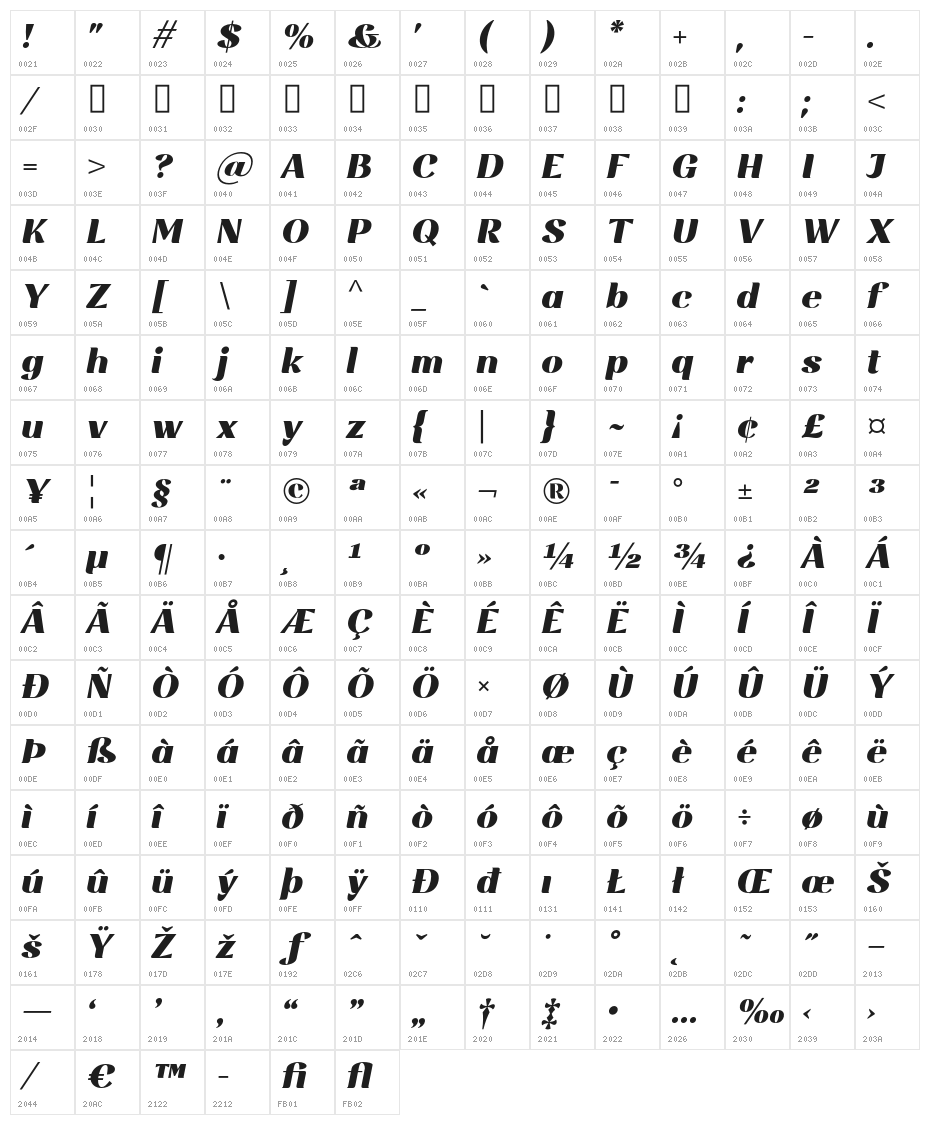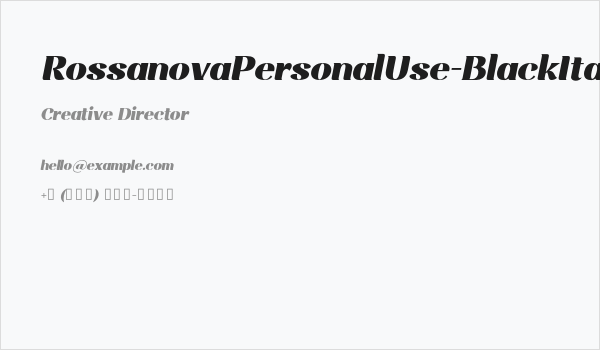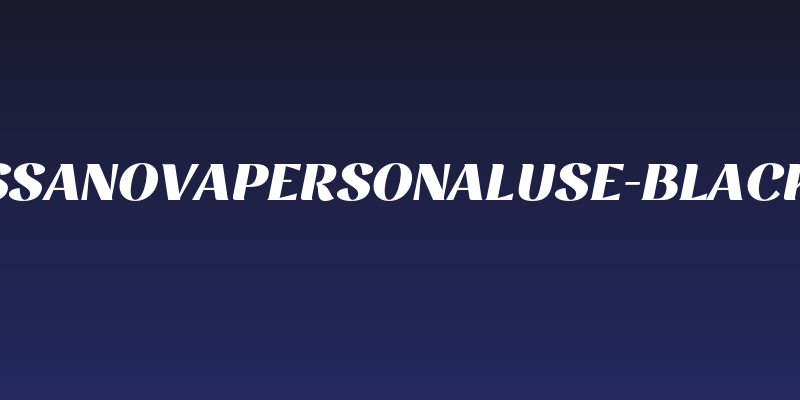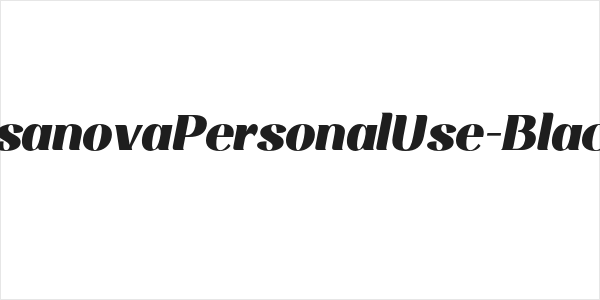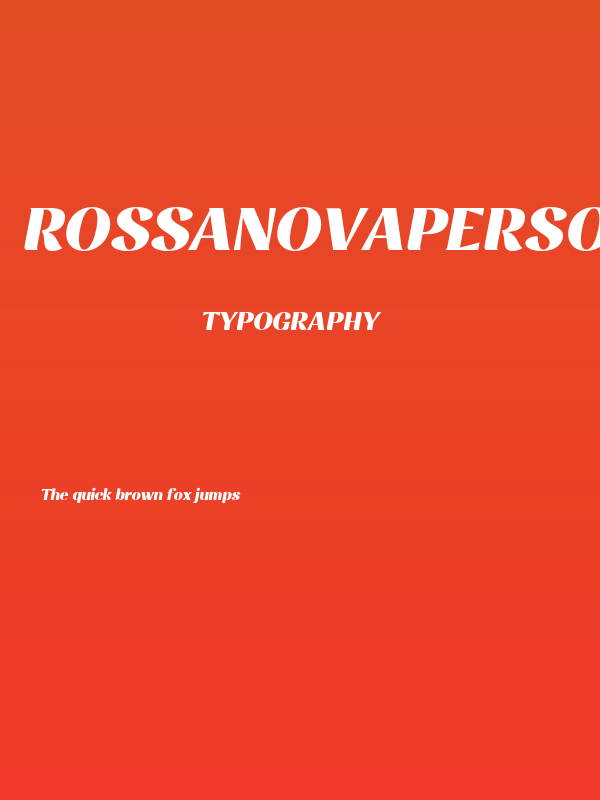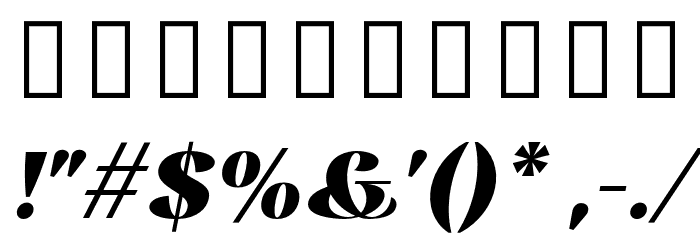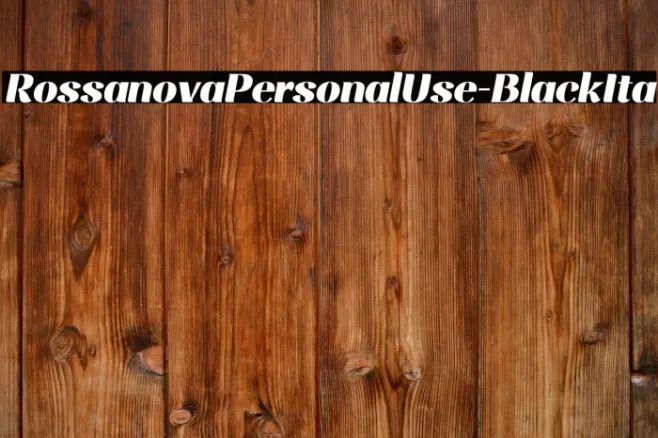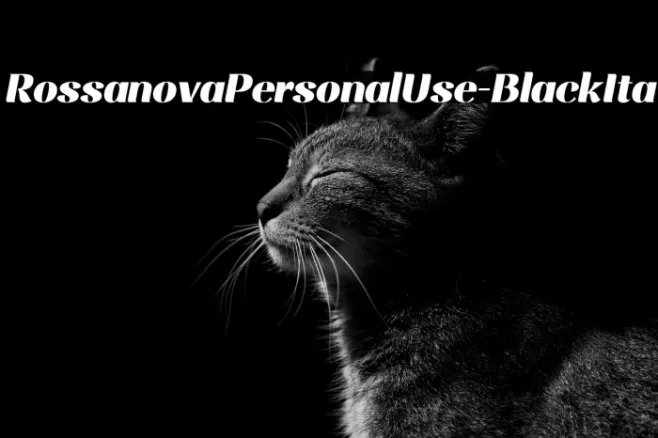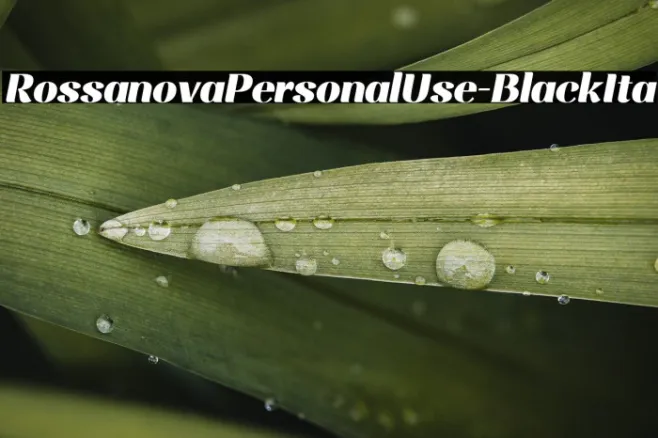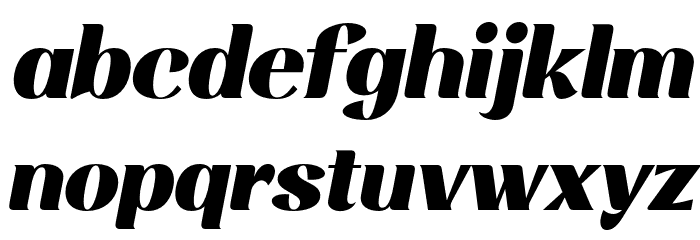
RossanovaPersonalUse-BlackIta Font
RossanovaPersonalUse-BlackIta Description
This font features a bold and dynamic style with a strong italic slant, giving it a sense of movement and energy. The characters are thick and robust, making them highly visible and impactful. The uppercase letters are particularly striking, with sharp angles and a pronounced presence. The lowercase letters maintain the same boldness, ensuring consistency across the typeface. The numbers and special characters are equally bold, providing a cohesive look. This font's overall design is modern and assertive, making it suitable for attention-grabbing headlines and statements.